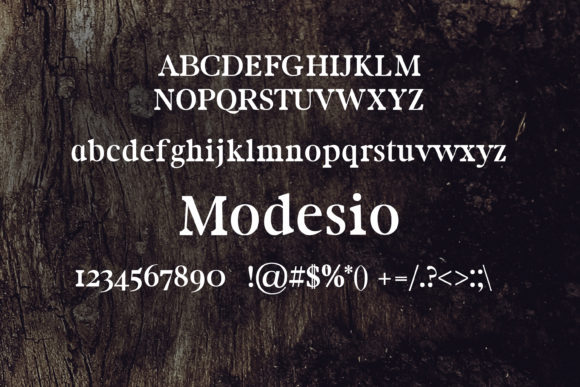
Introduction to Modesio Font
Modesio combines simplicity and elegance into one truly unique serif font.
Key Features of Modesio Font
Why Choose Modesio Font?